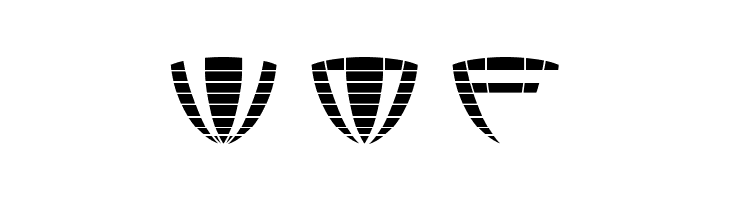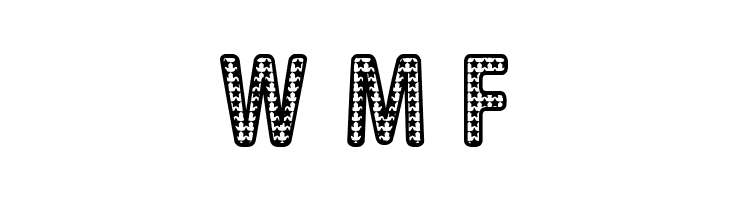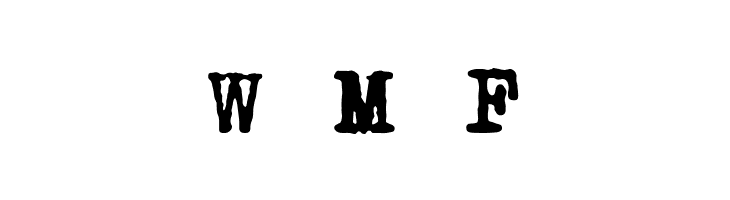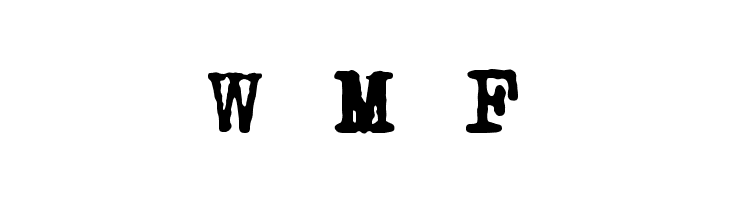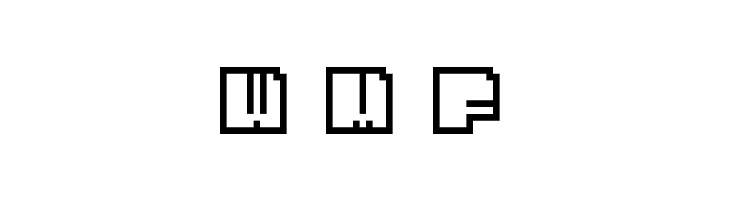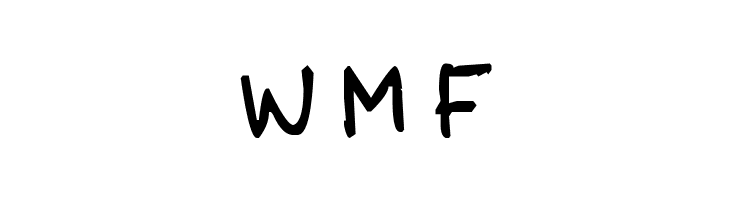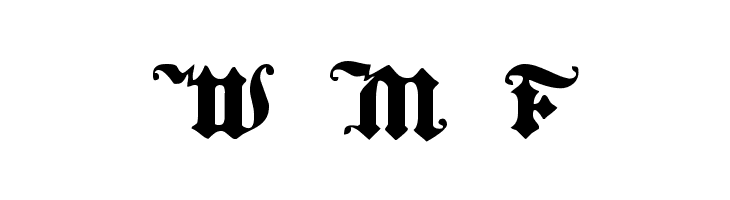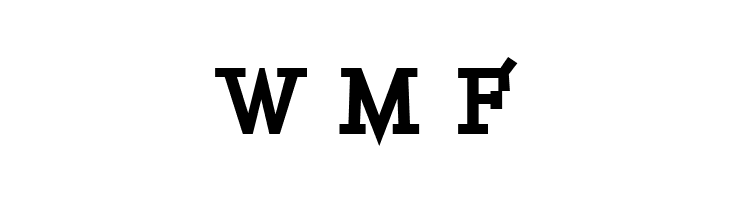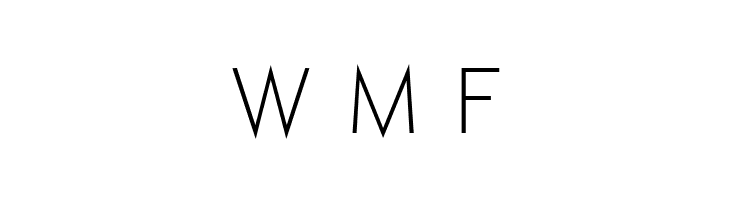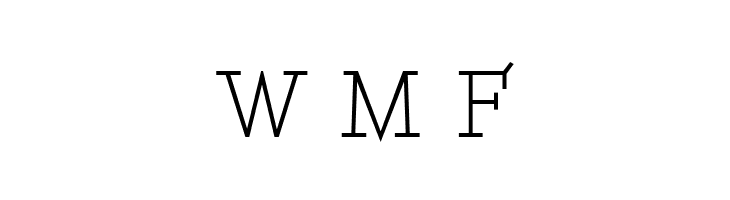
A bold, distressed font with a rugged, vintage appearance.
A geometric, stencil-like font with a bold, industrial design.
A bold, geometric font with rounded edges and a futuristic style.
A monospaced font with slab serif elements, offering a structured and uniform appearance.
A classic typewriter-style font with slab serifs and monospaced characters.
A bold, slab serif font with thick, uniform strokes and rounded edges.
A bold, rounded serif font with a vintage yet modern appeal.
A bold, italic serif font with rounded serifs and moderate contrast.
A bold, italic slab serif typeface with strong, impactful characters.
A monospaced, typewriter-inspired font with a slight slant and low contrast.
A classic serif typeface with a modern touch, offering readability and elegance.
A classic monospaced font with a clean, structured design.
A bold, distressed typewriter-style font with a vintage feel.
A vintage typewriter-style font with a distressed, hand-crafted look.
A bold, distressed typewriter-style font with a vintage aesthetic.
An elegant, cursive script font with ornate, flowing letters.
A bold, modern font with geometric elements and a strong visual impact.
An ornate blackletter font with intricate flourishes and bold strokes.
A bold, futuristic font with sharp, angular edges and a geometric design.
An ornate and decorative font with intricate letterforms.
A decorative and ornate font with intricate details and a vintage-modern blend.
A modern, geometric sans-serif font with clean lines and uniform structure.